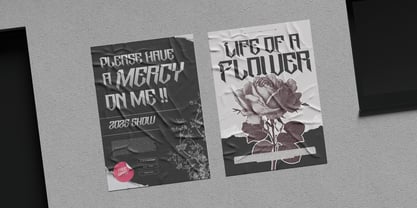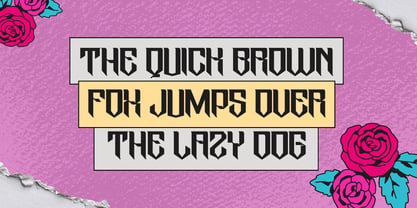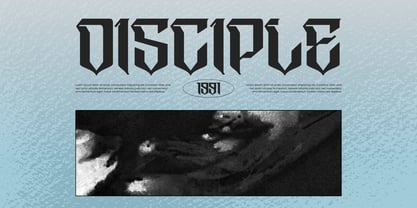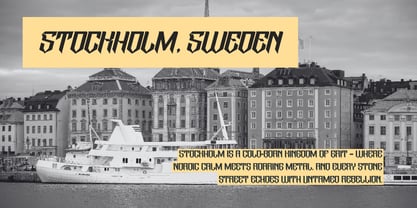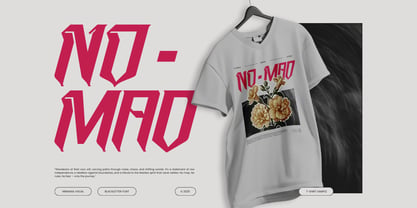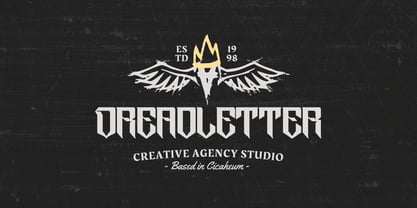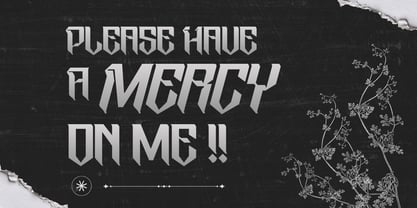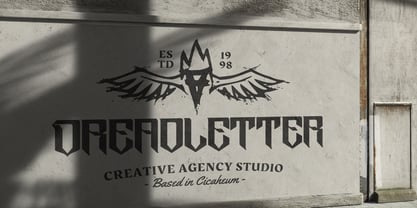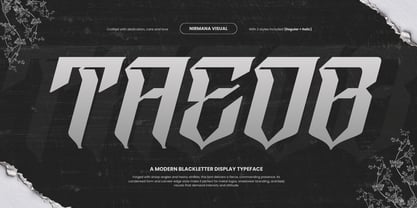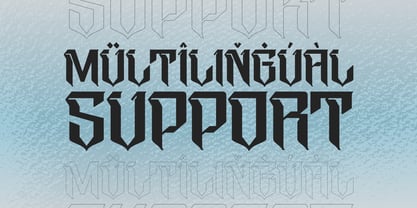
Taeob Gothic
The Taeob Gothic Font Family was designed by Sigit Dwipa and published by Nirmana Visual. Taeob Gothic contains 3 styles and family package options. More about this family
Taeob Gothic is a bold gothic font crafted for powerful visual impact. With sharp edges, dark character, and strong letterforms, Taeob delivers an intense aesthetic perfect for metal band logos, poster titles, and edgy branding. Its dramatic style brings raw energy to album covers, merchandise, streetwear, labels, and more—making every design stand out with a fierce and unforgettable presence.